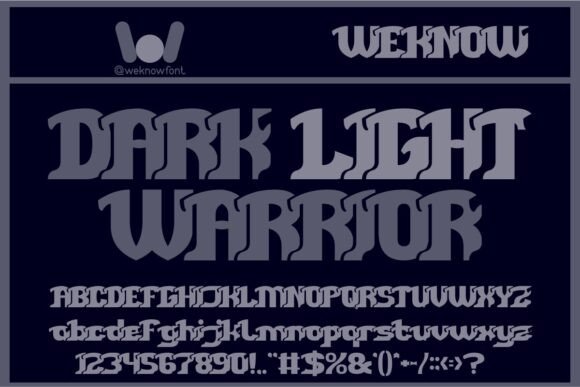
Unleashing the Power of Dark Light Warrior Font: A Comprehensive Guide
Step into the captivating realm of the Dark Light Warrior font, an imaginatively crafted Gothic display type that echoes the daring spirit of modern-age warriors. This font flawlessly fuses fancy and functional, making it a diverse choice for transforming the mundane into extraordinary. Whether you’re designing logos, headlines, or corporate or brand identities, Dark Light Warrior is the perfect companion to unveil compelling creative visions.
Key Features of Dark Light Warrior Font
- Gothic Display Type: Dark Light Warrior boasts a unique Gothic display type, characterized by its dramatic and intricate design. This font is perfect for creating bold and eye-catching headlines, titles, and captions.
- Fancy and Functional: The font strikes a perfect balance between aesthetics and functionality. Its fancy design elements make it perfect for creative projects, while its functional aspects ensure that it remains legible and versatile.
- Diverse Choice: Dark Light Warrior is an incredibly versatile font, suitable for a wide range of applications, from logos and branding to apparel, music, movies, and games.
Exploring the Endless Possibilities of Dark Light Warrior Font
Dark Light Warrior font is an ideal choice for various industries and creative projects. Here are some of the ways you can utilize this powerful font:
- Apparel Industry: Add a touch of intrigue to your sartorial display with Dark Light Warrior font. It’s perfect for designing t-shirts, hoodies, and other apparel items that require a bold and eye-catching font.
- Music, Movies, and Games: Create powerful narratives with Dark Light Warrior font. Use it to design album covers, movie posters, or game titles that require a dramatic and attention-grabbing font.
- Magazines, Books, and Comics: Lend a fresh voice to your publications with Dark Light Warrior font. It’s perfect for designing headlines, titles, and captions that require a unique and creative font.
- Digital Snapshots and Social Media: Infuse charisma into your digital snapshots on Instagram or engage your audience on YouTube with Dark Light Warrior font. Use it to create eye-catching captions, titles, or quotes that require a bold and dramatic font.
- Web Design and Projects: Whether you’re designing a website or brewing a special project, Dark Light Warrior font is your invincible companion. Use it to create compelling creative visions that leave a lasting impression.
Tips for Using Dark Light Warrior Font Effectively
To get the most out of Dark Light Warrior font, here are some tips to keep in mind:
- Pair it with Neutral Fonts: Pair Dark Light Warrior font with neutral fonts to create a balanced and harmonious design. This will help you achieve a professional and polished look.
- Experiment with Colors: Don’t be afraid to experiment with different colors and textures to enhance the visual appeal of Dark Light Warrior font. This will help you create a unique and captivating design.
- Use it for Headlines and Titles: Dark Light Warrior font is perfect for designing headlines and titles. Use it to create bold and eye-catching captions that grab attention.
The Benefits of Using Dark Light Warrior Font
Dark Light Warrior font offers a range of benefits that make it an ideal choice for creative projects. Here are some of the advantages of using this font:
- Unique and Creative: Dark Light Warrior font is a unique and creative font that can help you stand out from the crowd. Its dramatic and intricate design makes it perfect for creating bold and eye-catching designs.
- Versatile: This font is incredibly versatile, suitable for a wide range of applications and industries. Whether you’re designing logos, headlines, or apparel, Dark Light Warrior font is a great choice.
- Legible: Despite its fancy design, Dark Light Warrior font remains legible and easy to read. This makes it perfect for creating designs that require both aesthetics and functionality.
In conclusion, Dark Light Warrior font is a powerful and versatile font that can help you unleash your creative potential. Its unique Gothic display type, fancy and functional design, and diverse range of applications make it an ideal choice for creative projects. Whether you’re designing logos, headlines, or apparel, Dark Light Warrior font is your invincible companion in unveiling compelling creative visions.